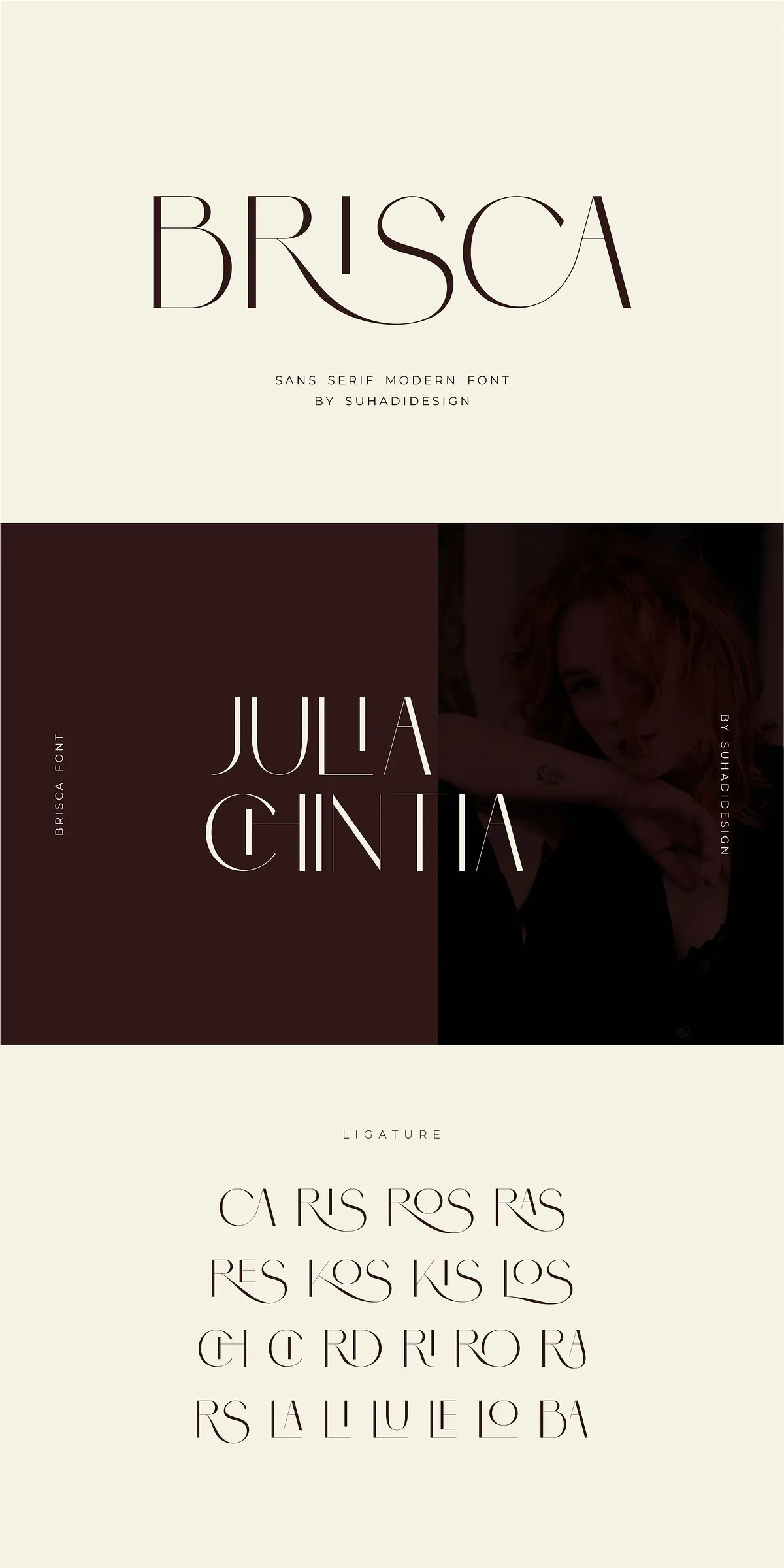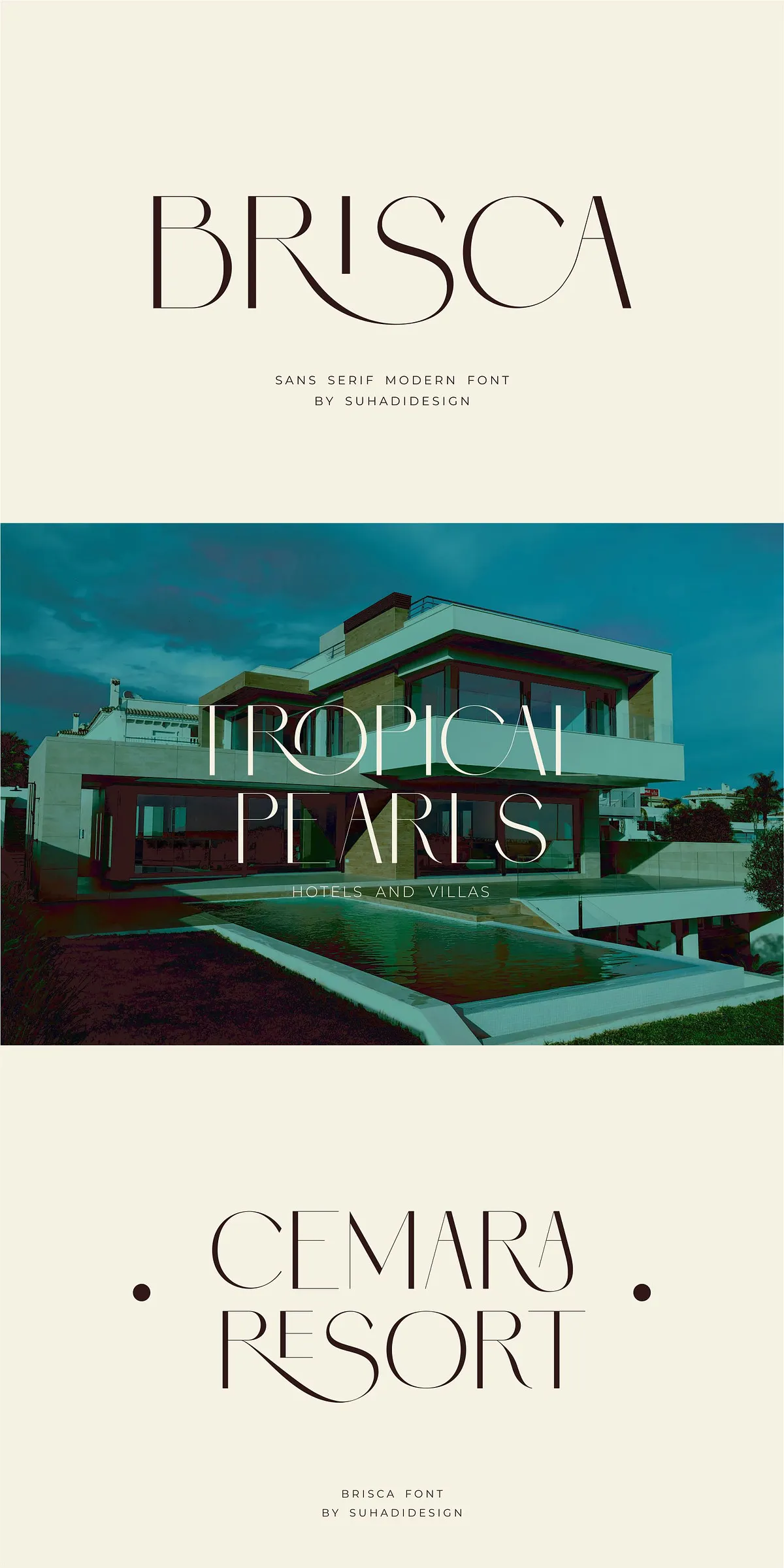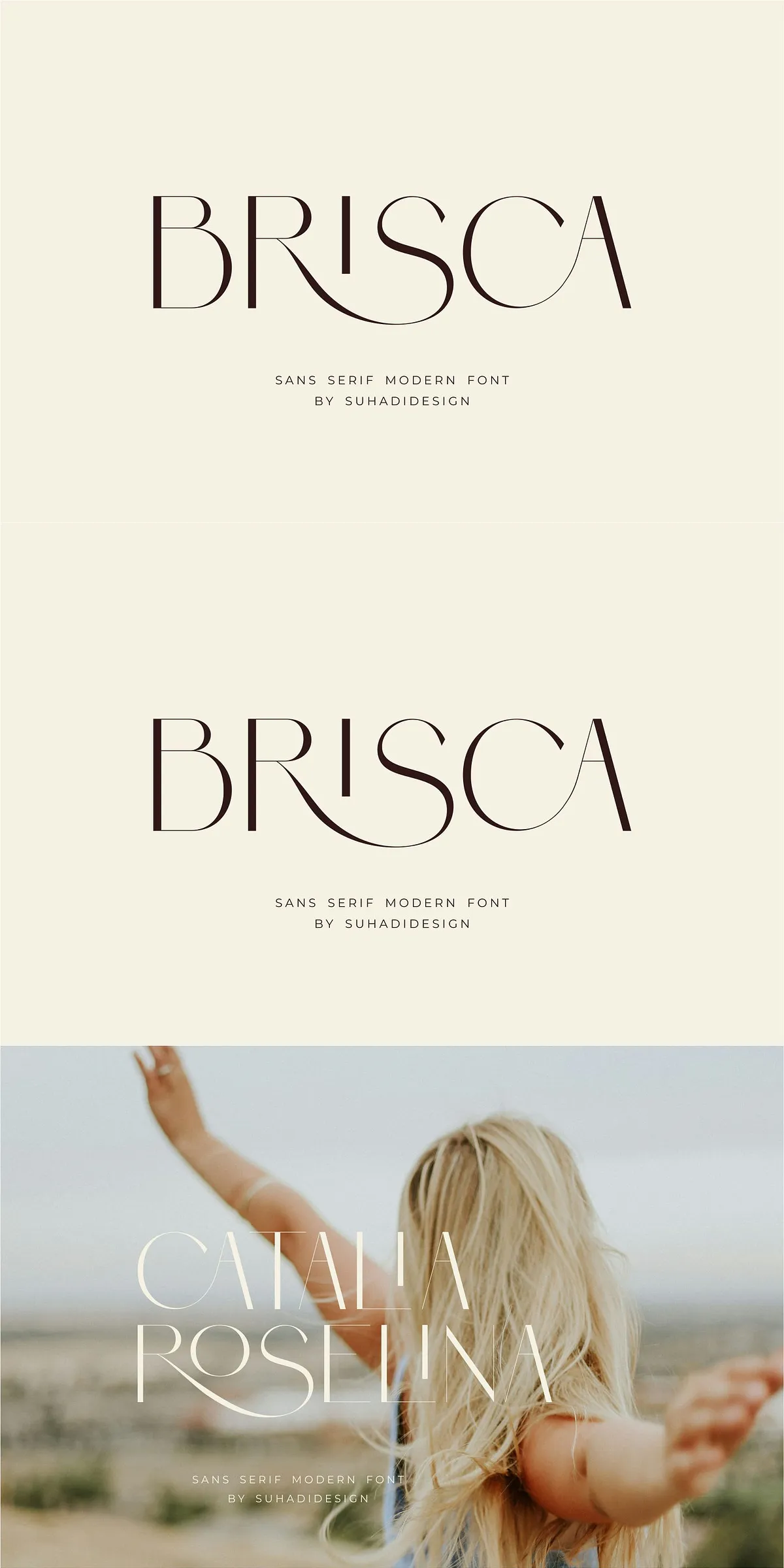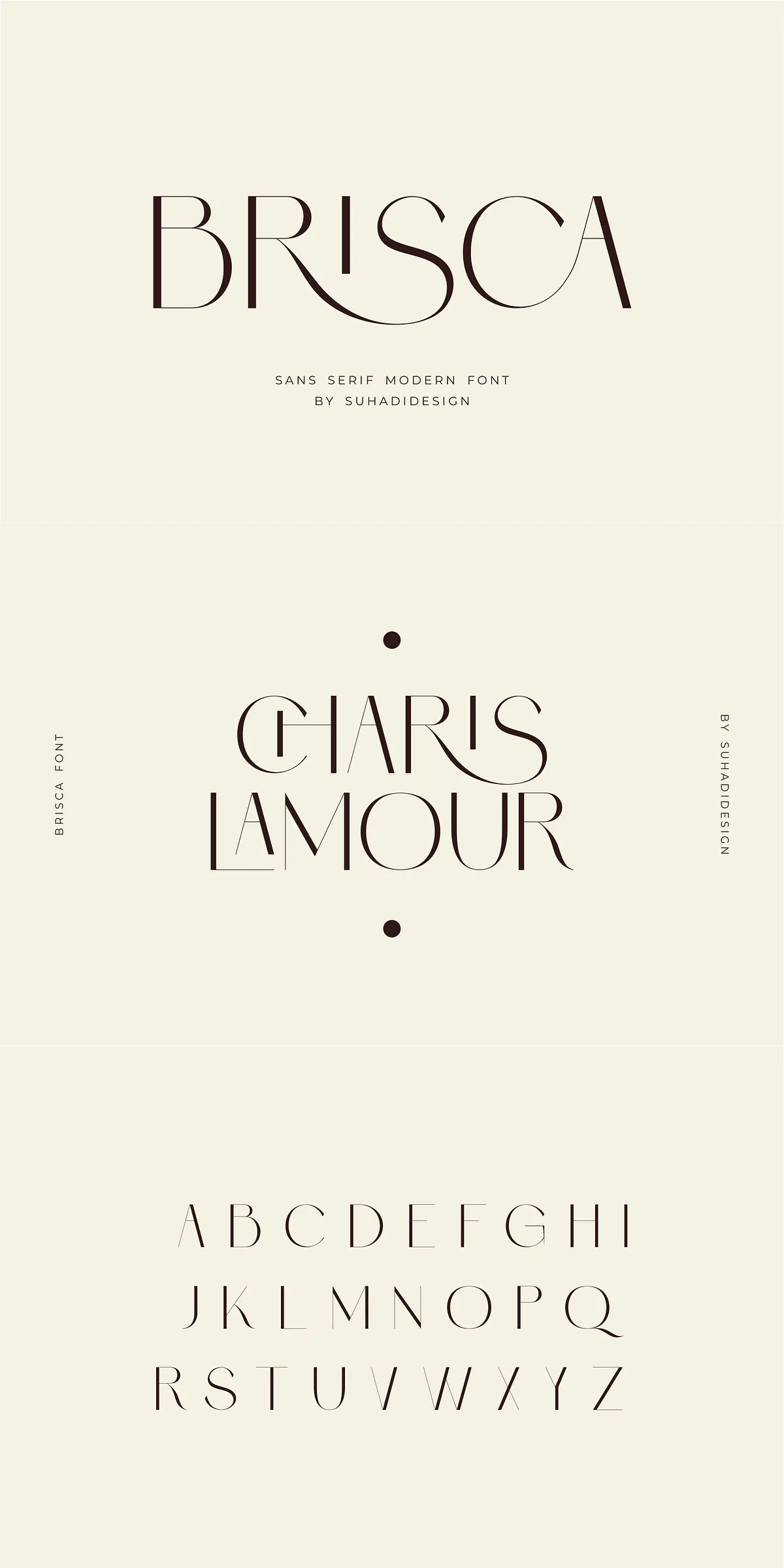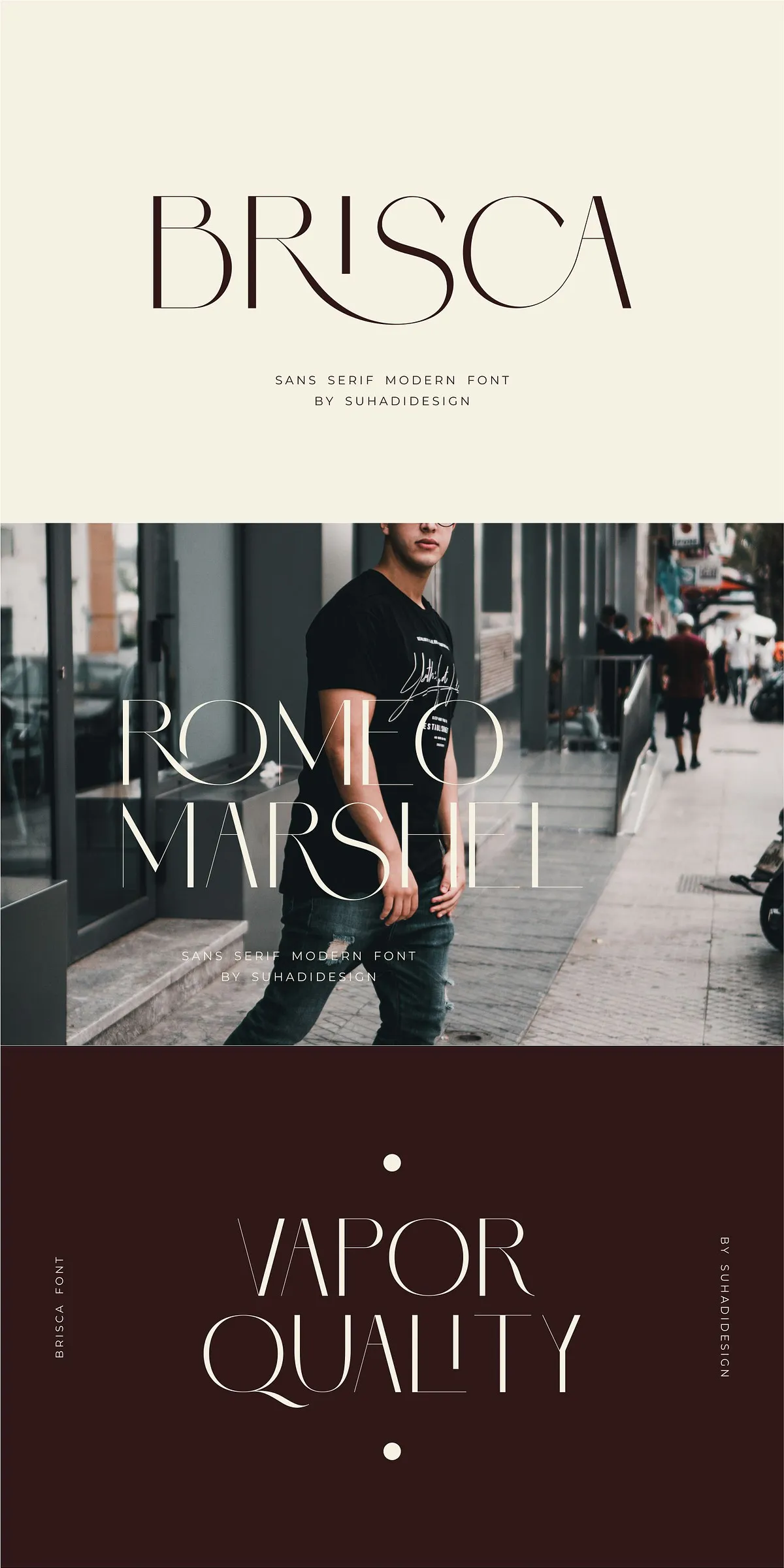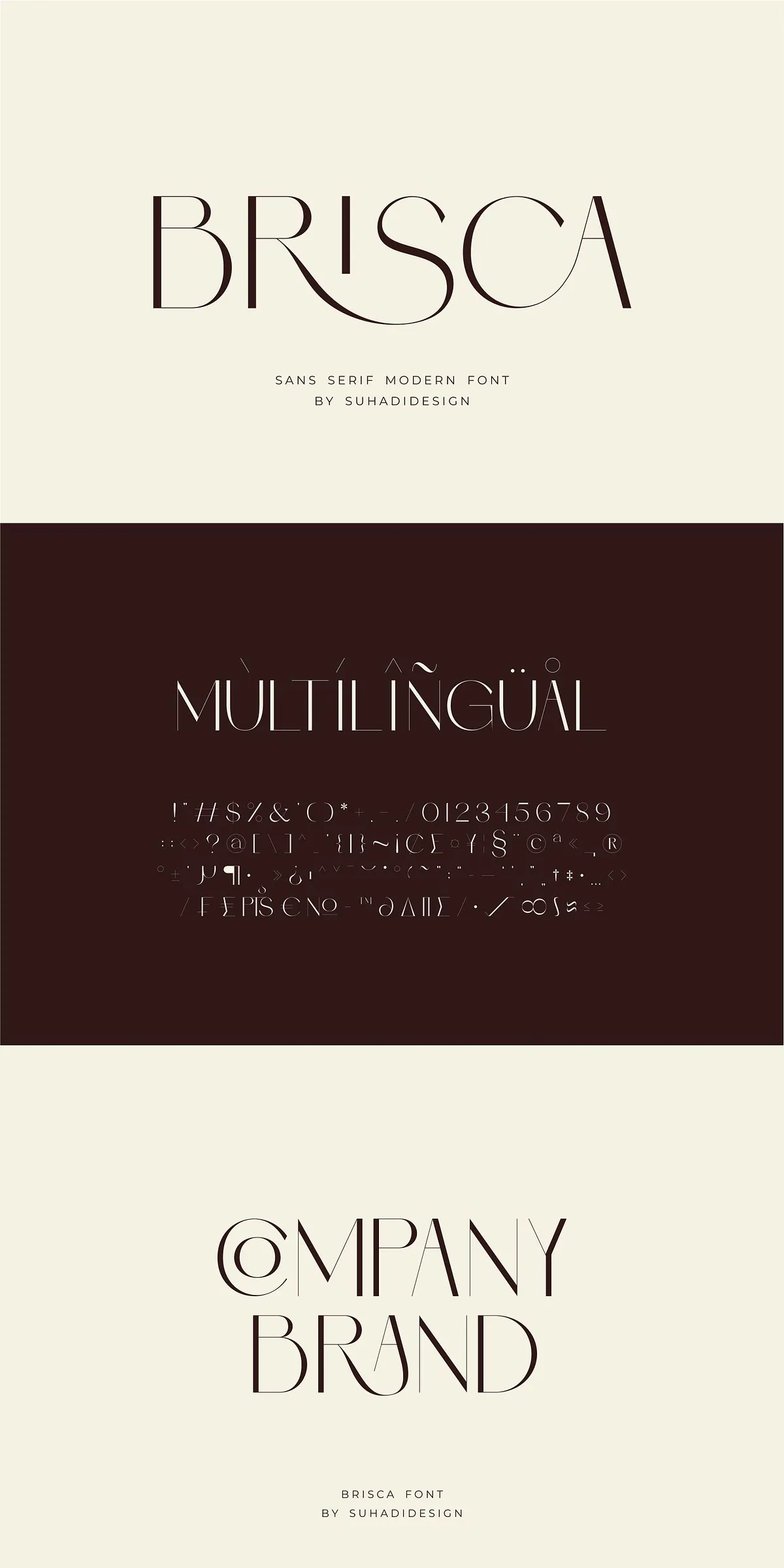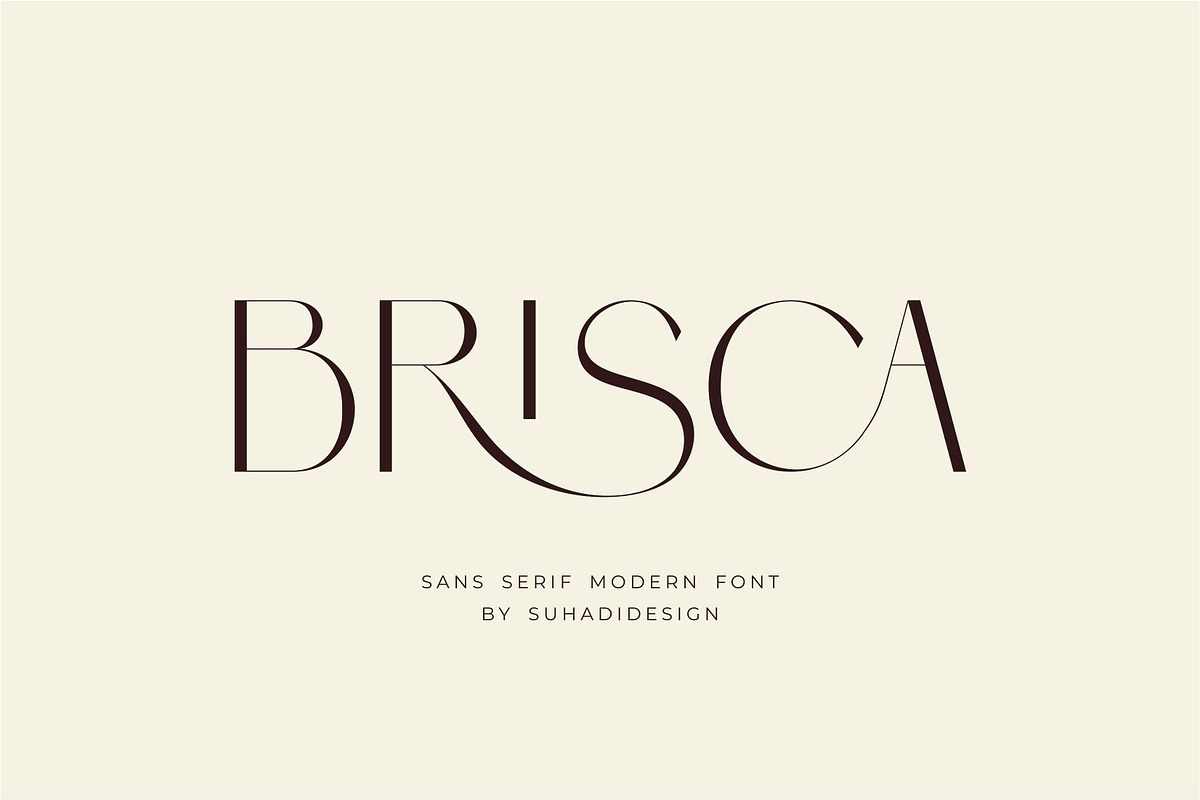
Introducing Brisca — the bold, refined sans serif font that’s redefining modern design with its clean lines, confident presence, and intelligent typographic features. Designed for creators who demand both aesthetic excellence and functional precision, Brisca isn’t just another font — it’s a statement. With its minimalist geometry, elegant proportions, and seamless ligature integration, Brisca turns every word into a visual experience.
Crafted for the Modern Designer: Sleek, Confident, and Instantly Recognizable
From the first glance, Brisca commands attention. Its modern structure balances open spacing with tight kerning, creating a rhythm that feels both intentional and effortless. The absence of serifs removes visual clutter, allowing the message to shine — perfect for brands that value clarity, modernity, and high-end appeal. Every curve, angle, and stroke is purposefully engineered to enhance readability and visual harmony across print and screen.
Powerful Features That Elevate Your Design Workflow
- Built-in Ligature System – Automatically connects letters like fi, fl, ffi, and ffl for smoother, more professional-looking typography. No more manual adjustments.
- 6 Weights & 2 Widths – Choose from Light, Regular, Medium, Semi-Bold, Bold, and Extra-Bold across Standard and Condensed widths, giving you full control over hierarchy and tone.
- Comprehensive Character Set – Supports Latin, Extended Latin, OpenType features, small capitals, old style figures, fractions, and discretionary ligatures — ideal for high-end publishing and branding.
- Perfect for Brand Identity – From logo wordmarks to social media banners, Brisca strengthens brand recognition with a consistent, elegant character.
Where Brisca Makes the Most Impact: Creative Applications You Can’t Ignore
Brisca isn’t designed to blend in — it’s designed to stand out. Whether you’re crafting a luxury beauty campaign, designing a fashion magazine cover, or building a brand’s visual identity, Brisca delivers instant credibility and visual polish.
Top 7 Use Cases for Brisca in Professional Design
- Beauty & Cosmetics Branding – Use the elegant Regular and Medium weights for skincare product names, ingredient lists, and packaging copy to create a premium, trustworthy image.
- Logo & Wordmark Design – The Bold and Extra-Bold weights give logos strong visual impact, while the clean structure ensures scalability from business cards to billboards.
- Magazine & Book Layouts – Pair Brisca with serif fonts for body text in editorial design — its modern look provides ideal contrast without overpowering.
- Business Cards & Professional Invitations – Classy, minimal, and highly legible. Brisca adds sophistication to every printed detail.
- Web & App Typography – Use the Light and Regular weights for headings and UI copy — crisp rendering on all devices ensures consistent user experience.
- Social Media Content & Digital Ads – Apply dynamic ligatures and bold weights to create scroll-stopping visuals for Instagram, TikTok, and Facebook ads.
- Newspaper Headlines & Editorial Titles – Its high contrast and modern edge make Brisca ideal for headlines that need to command attention in fast-paced digital feeds.
Why Designers Are Choosing Brisca: Confidence in Every Character
Brisca isn’t just about looks — it’s about performance. The font’s OpenType enhancements automate advanced typographic tasks, reducing manual work and ensuring typographic consistency across projects. Whether you’re designing for print, web, or multimedia, Brisca adapts with precision.
Pro Tips to Get the Most from Brisca
- Use Regular + Ligatures for product names and brand tags to achieve a seamless, high-end feel.
- Pair Extra-Bold with a serif like Playfair Display for luxury editorial designs with strong visual contrast.
- Apply Condensed Medium for tight layouts like menu designs, ticket templates, or infographic labels.
- Enable discretionary ligatures in web projects to enhance typography elegance without increasing file size.